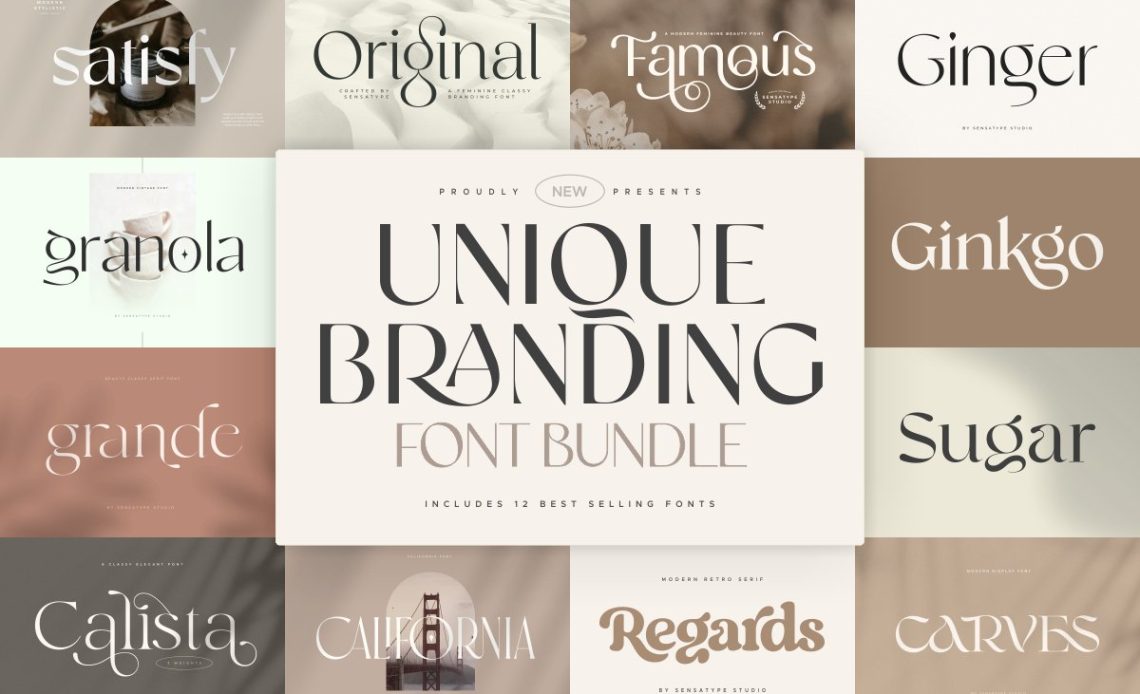
Introducing the Unique Branding Modern Font Bundle, a must-have for anyone looking to create a unique and meaningful logo design! Created by Muhammad Zamroni Hamzah, this serif font family is the perfect solution for those looking to elevate their branding and design projects.
With 12 fonts in 1 bundle, you get a variety of unique, modern, and meaningful fonts that are sure to make your project stand out. Plus, with best-selling fonts like Satisfy, Famous, Ginger, Granola, Grande, Ginkgo, California, Sugar, Calista, Carves, Original, and Regards, you can't go wrong!
- Uppercase and lowercase letters
- Multilingual Characters
- Numerals & punctuations